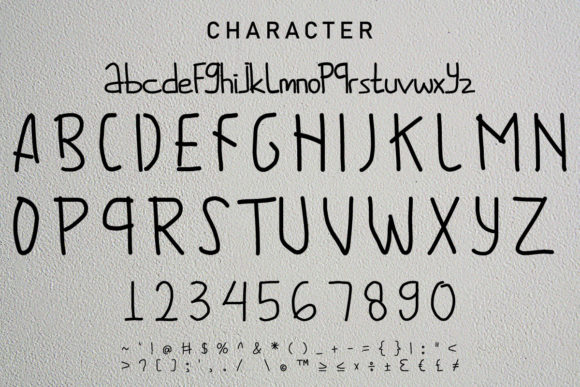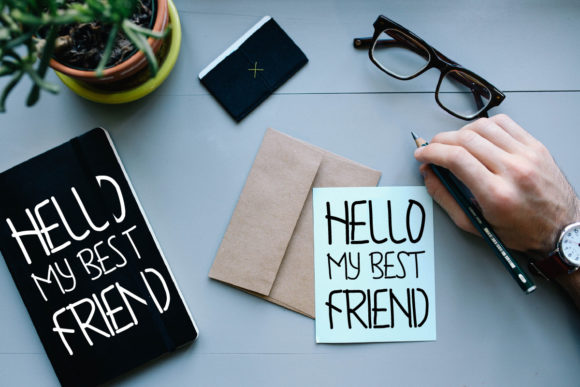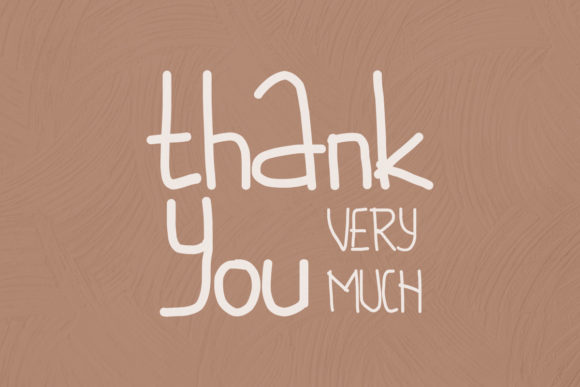
Introduction to Misterplay Font
Do you remember the joy of doodling on a chalkboard as a child? The scratchy sound of the chalk, the way the letters seemed to dance on the board, and the pride of creating something beautiful from scratch? As a designer, you might be looking for a way to recapture that magic in your creative projects. That’s where the Misterplay Font comes in – a charming, handwritten font that’s perfect for adding a personal touch to your designs.
With its authentic, chalkboard-inspired look, the Misterplay Font is a valuable resource for designers who want to create high-quality, eye-catching content. Whether you’re working on a project for a school, a business, or a personal creative endeavor, this font is sure to add a unique and realistic feel to your designs. And the best part? You can download the Misterplay Font for free, making it an accessible design resource for anyone.
Key Features of Misterplay Font
- Unique and stylish font with a transparent background, perfect for adding a touch of elegance to your design.
- Single font file with 5 styles (Regular, Bold, Italic, Bold Italic, Outline), suitable for a wide range of creative applications.
Honest Review: Misterplay Font
I recently stumbled upon the Misterplay Font while searching for a free download to enhance my design project. I was thrilled to discover that it offers high-quality typography that can elevate any creative project.
- ✨ The font has a unique and playful feel to it, making it perfect for designs that require a bit of whimsy.
- ✨ The transparent background option allows for seamless integration into various design elements.
- ⚠️ The font may not be suitable for formal or professional designs, as it has a more casual tone.
- ⚠️ The font’s complexity may make it difficult to read at very small sizes.
Overall, I’m impressed with the Misterplay Font’s potential to add a creative touch to my designs. While it may have some limitations, its unique style and high-quality typography make it a valuable addition to any design resource library.